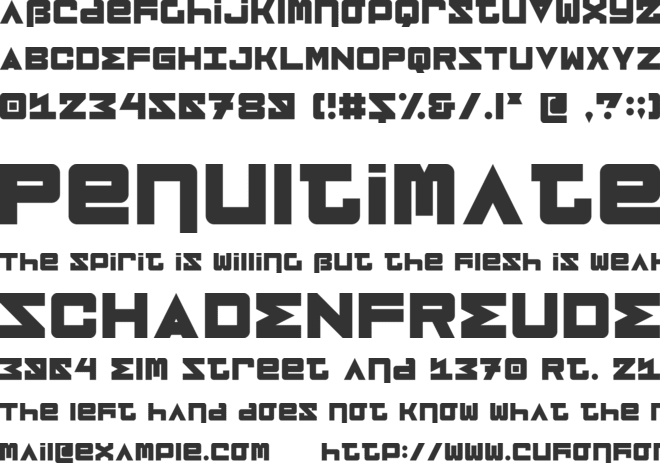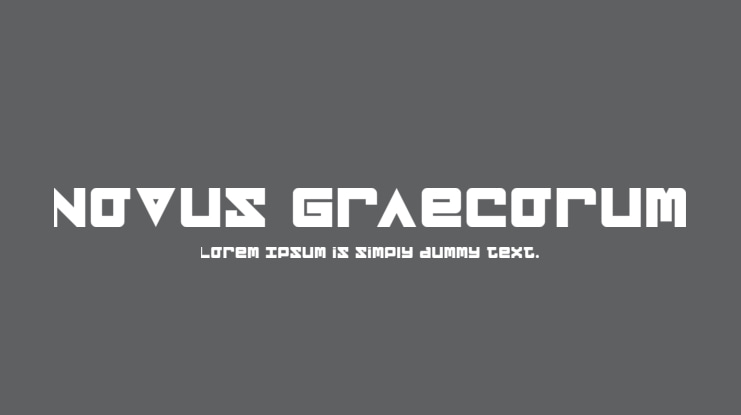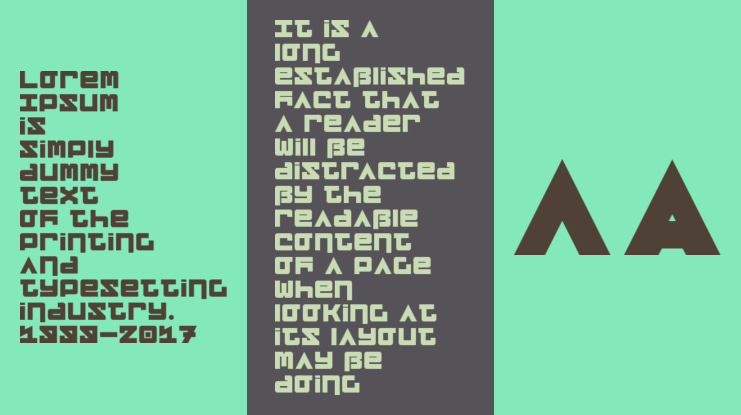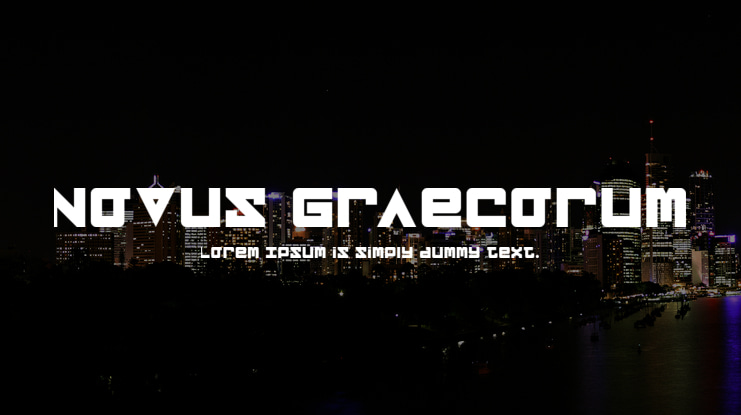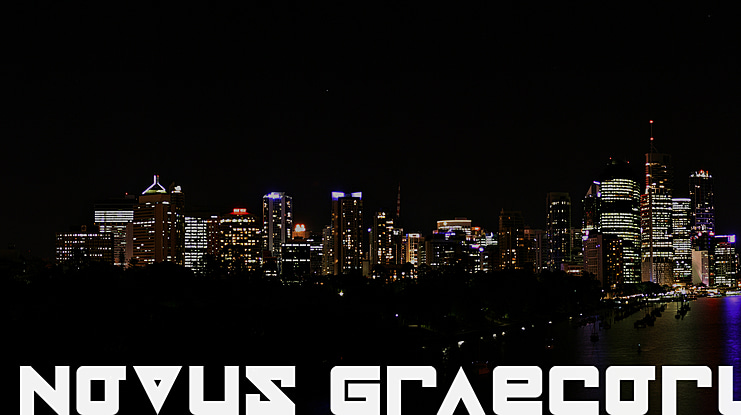
Novus Graecorum Font
I made this for someone who requested "a font that looks like a hybrid of Greek and Latin". Supports Dutch, English, and Greek!
This is designed to be modular. There are multiple versions of letters which you can put together to achieve different looks. UPPER CASE contains the standard glyphs, so use it if you want the most normal-looking text. Alternate letters are on the lowercase as well as the Latin Extension A band.